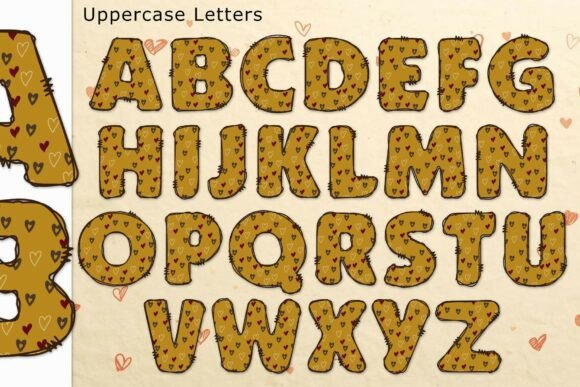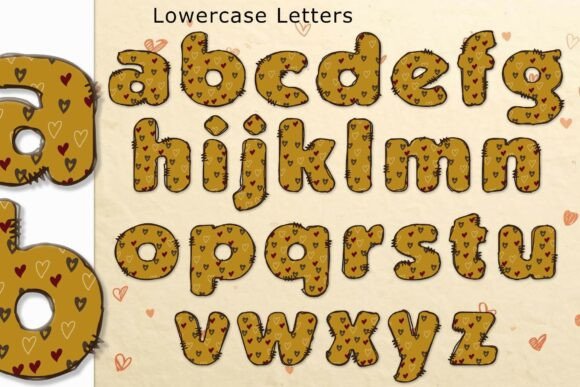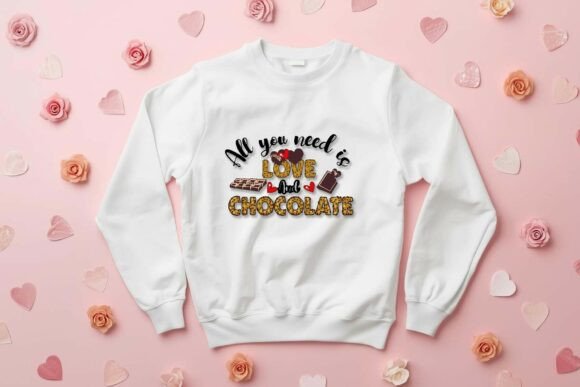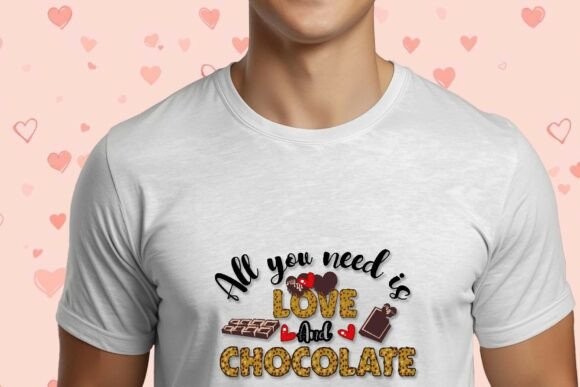
Introduction to Chocolate Heart Font
Have you ever been working on a design project and suddenly, you’re craving something sweet? For designers, the perfect combination of creativity and inspiration often comes from the most unexpected places – like a delicious piece of chocolate. This is exactly what happens when you work with the Chocolate Heart Font, a high-quality, Valentine-themed doodle font that’s as charming as it is versatile.
Whether you’re designing for a holiday sale, a child’s party, or a simple love quote, the Chocolate Heart Font brings a soft, sweet, and friendly feeling to both digital and print designs. As a “Color Font” (OpenType-SVG), it’s a valuable design resource that brings its own texture and shading directly into your design software, making it a free download that’s perfect for any creative project.
This font’s transparent background and delicate, hand-drawn illustrations make it a perfect match for simple, hand-drawn designs and pastel color palettes. With the Chocolate Heart Font, you can create high-quality designs that are sure to impress, and with its free download option, you can get started on your next creative project right away.
Key Features of Chocolate Heart Font
- High-quality design resource suitable for creative projects, with a unique and elegant style.
- Designed to work well in various font sizes and styles, from small text to large headings.
- Perfect for designers and artists working on creative projects, such as logos, invitations, and greeting cards.
Honest Review: Chocolate Heart Font
I recently stumbled upon the Chocolate Heart Font and I must say it’s a delightful addition to any design project. The font exudes warmth and playfulness, making it perfect for creative projects that require a touch of sweetness.
- ✨ High-quality design: The Chocolate Heart Font is well-crafted and visually appealing, making it a great choice for designers.
- ✨ Transparent background: The font’s transparent background allows for easy combination with other design elements.
- ⚠️ Limited versatility: The Chocolate Heart Font is best suited for projects that require a playful, whimsical feel.
- ⚠️ Not ideal for formal projects: The font’s lighthearted nature may not be suitable for formal or professional projects.
Overall, the Chocolate Heart Font is a great design resource for creative projects. While it may not be the best choice for every project, it’s definitely a valuable addition to any designer’s toolkit.
The Chocolate Heart Font is perfect for valentine’s day or anniversary cards, wedding invitations, and other romantic occasions. It’s also great for adding a touch of whimsy to birthday cards, get well cards, or other greeting cards. You can also use it to create a beautiful and unique design for a free download or a design resource website.